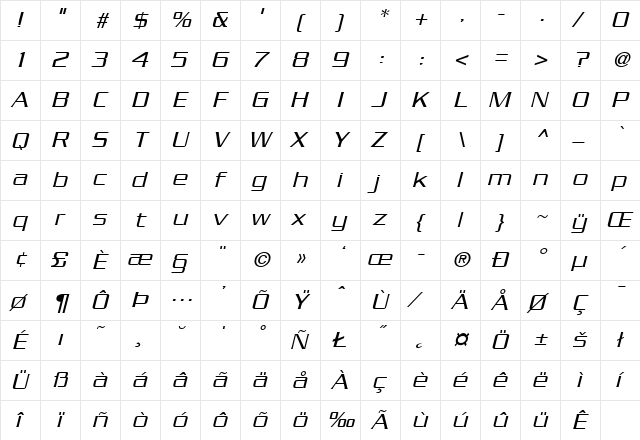
Serpentine-LightOblique Regular Font Preview
Design Context for Serpentine-LightOblique Typeface
Serpentine-LightOblique takes a measured approach to typography — its balanced proportions and neutral character make it a reliable workhorse for both digital and print work. The dynamic lean of this cut emphasises speed and emphasis in any layout. Its slender proportions lend an understated elegance to any composition.